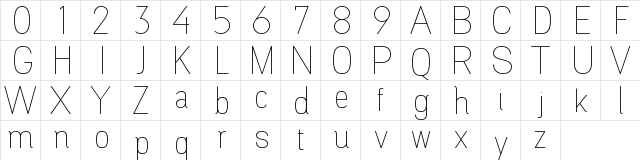
Magnolla Demo Regular
| Foundry | Dxsign Type |
| Designer | Adriyawan |
Design Context for Magnolla Demo Typeface
Magnolla Demo is a composed and adaptable typeface that performs quietly and consistently across a wide range of design contexts.